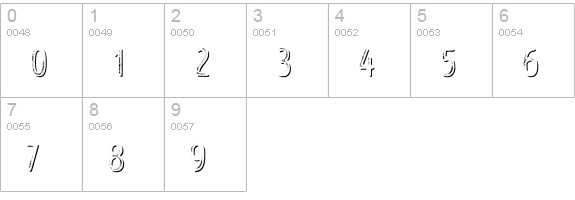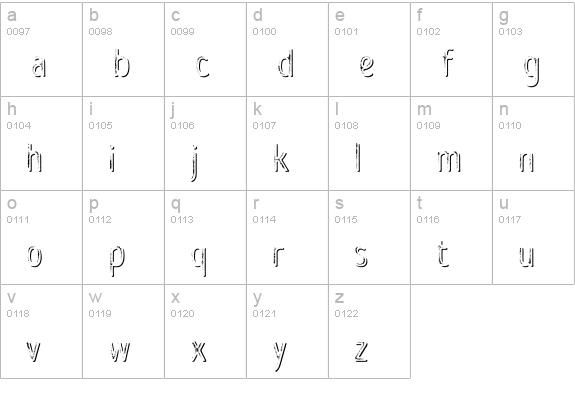
Intro Head R G Shade Font Details
Introducing the stunning Intro Head R G Shade font, a bold and dynamic typeface that commands attention with its unique design. This font exudes a sense of modernity and sophistication, making it perfect for creating eye-catching headlines, titles, and branding materials. With its intricate shading and intricate details, Intro Head R G Shade font adds a touch of elegance and flair to any project. Whether you're working on a poster, logo, or website design, this font will elevate your work to the next level. The best part? Intro Head R G Shade font is completely free to download at FontsMarket.com. This means you can easily access this stylish typeface and incorporate it into your designs without any cost. Don't miss out on the opportunity to enhance your projects with this exceptional font - download it today and unleash your creativity!